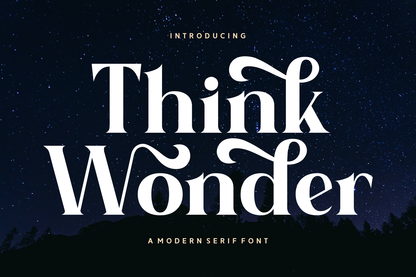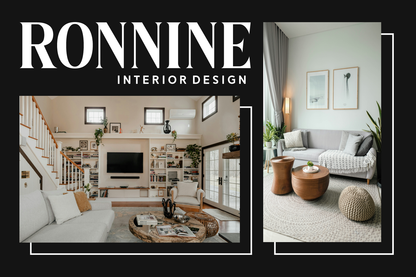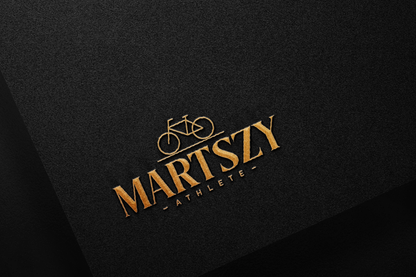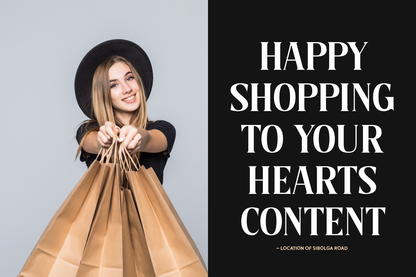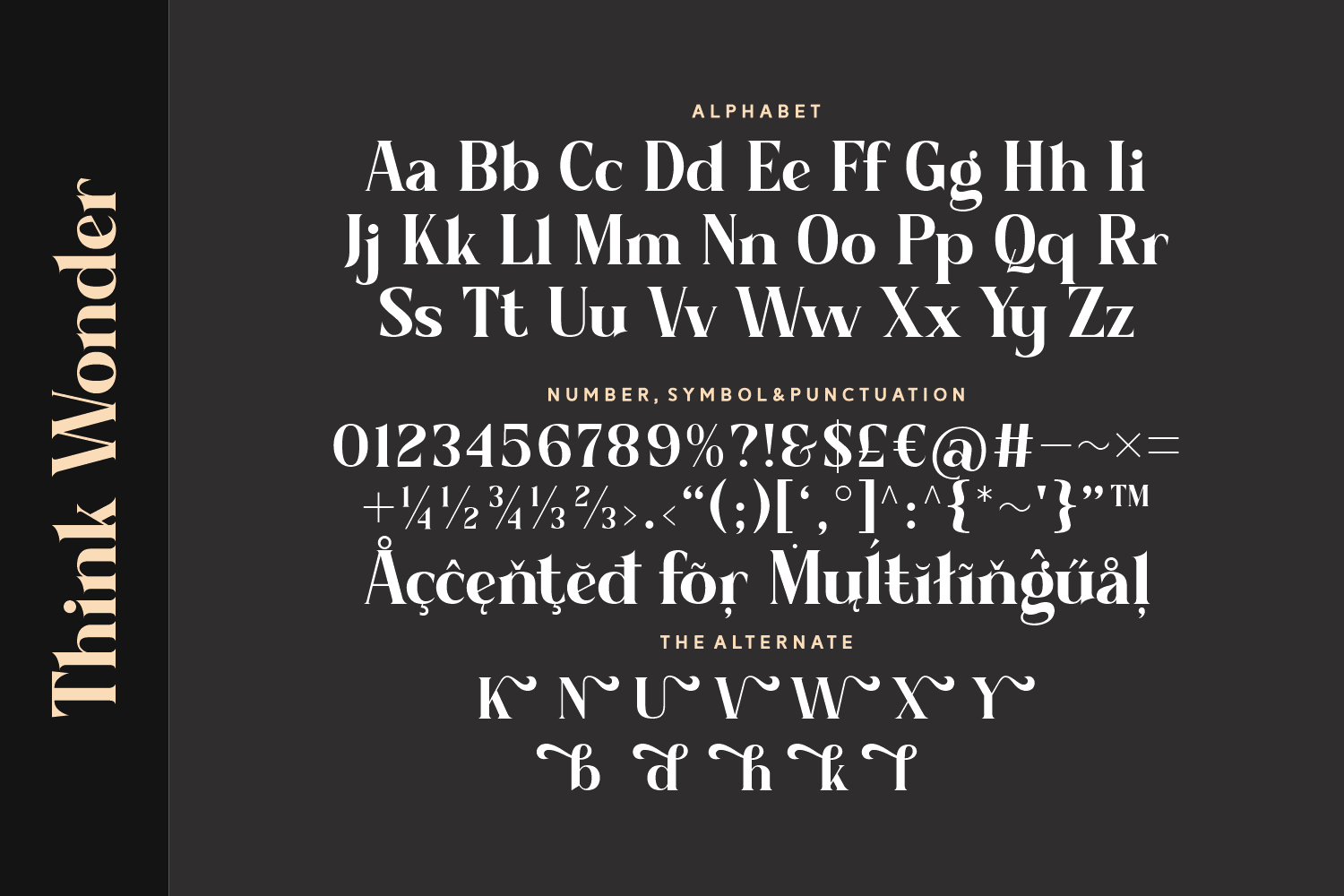
Think Wonder is a whimsical serif font with beautifully flowing swashes and charming curves. Designed to spark imagination, this typeface blends playful elegance with editorial flair. Whether used for book covers, dreamy branding, or inspirational quotes, it invites curiosity and creativity.
Perfect for designers who want their typography to feel magical and intentional, Think Wonder adds personality and warmth to any project. It's the kind of font that makes your words feel like a story waiting to be told.